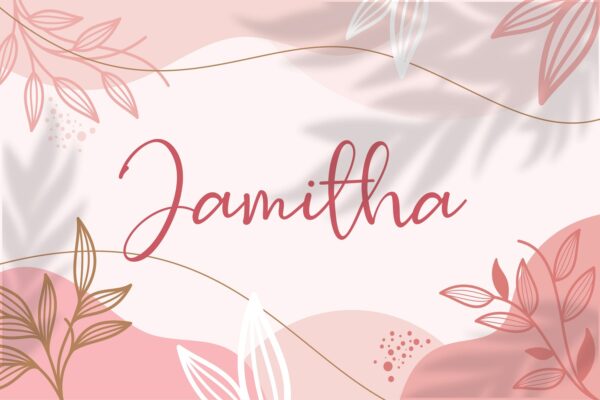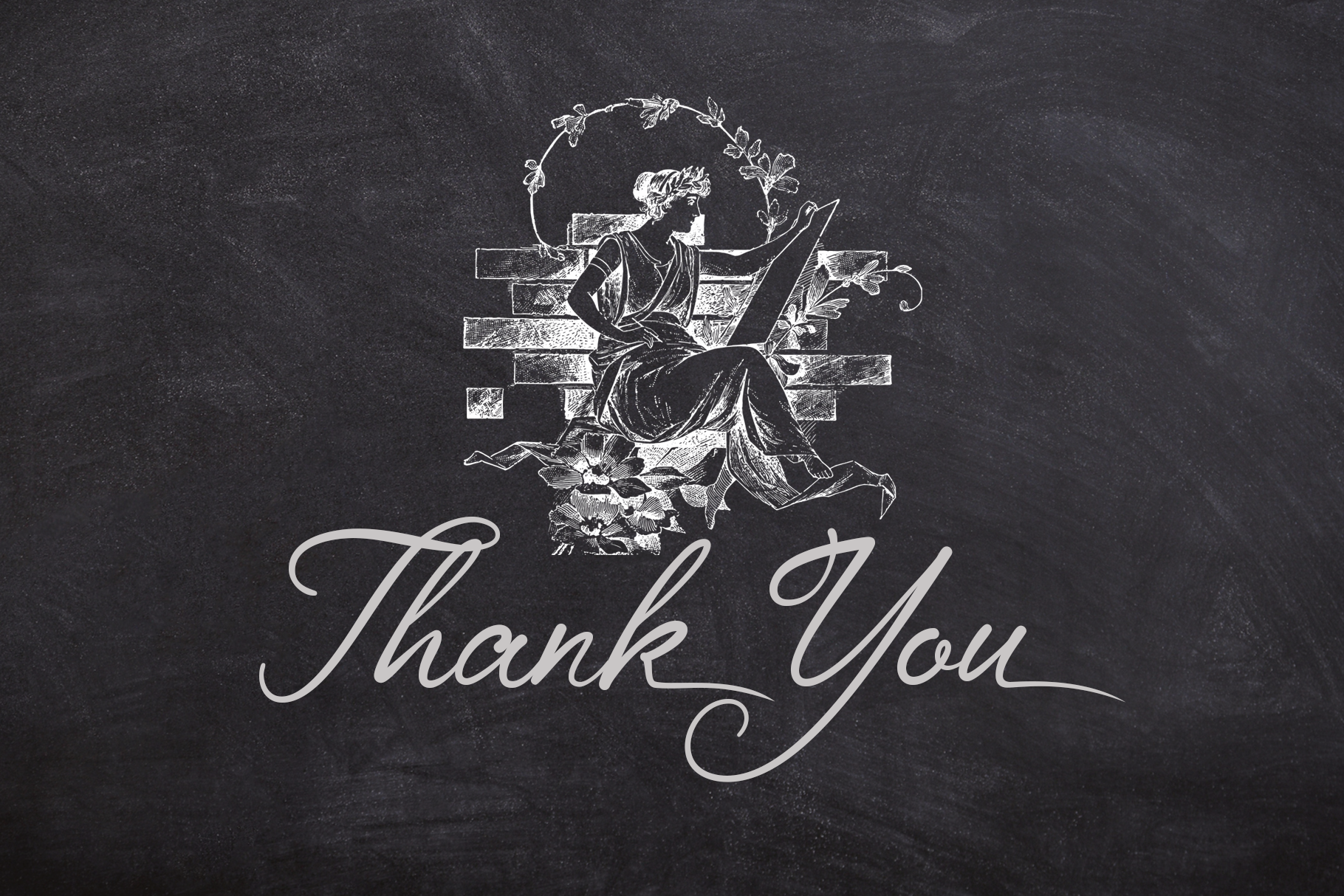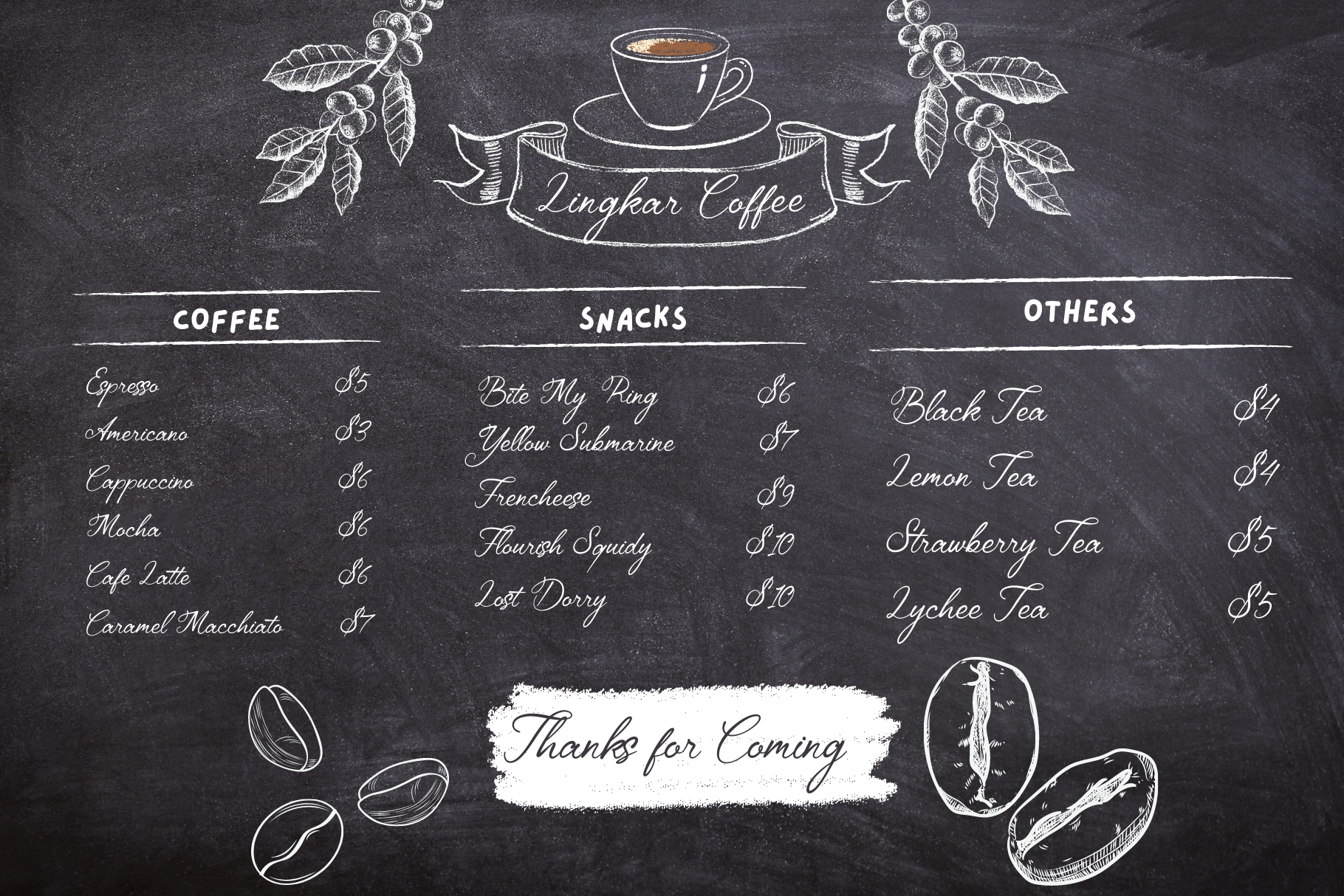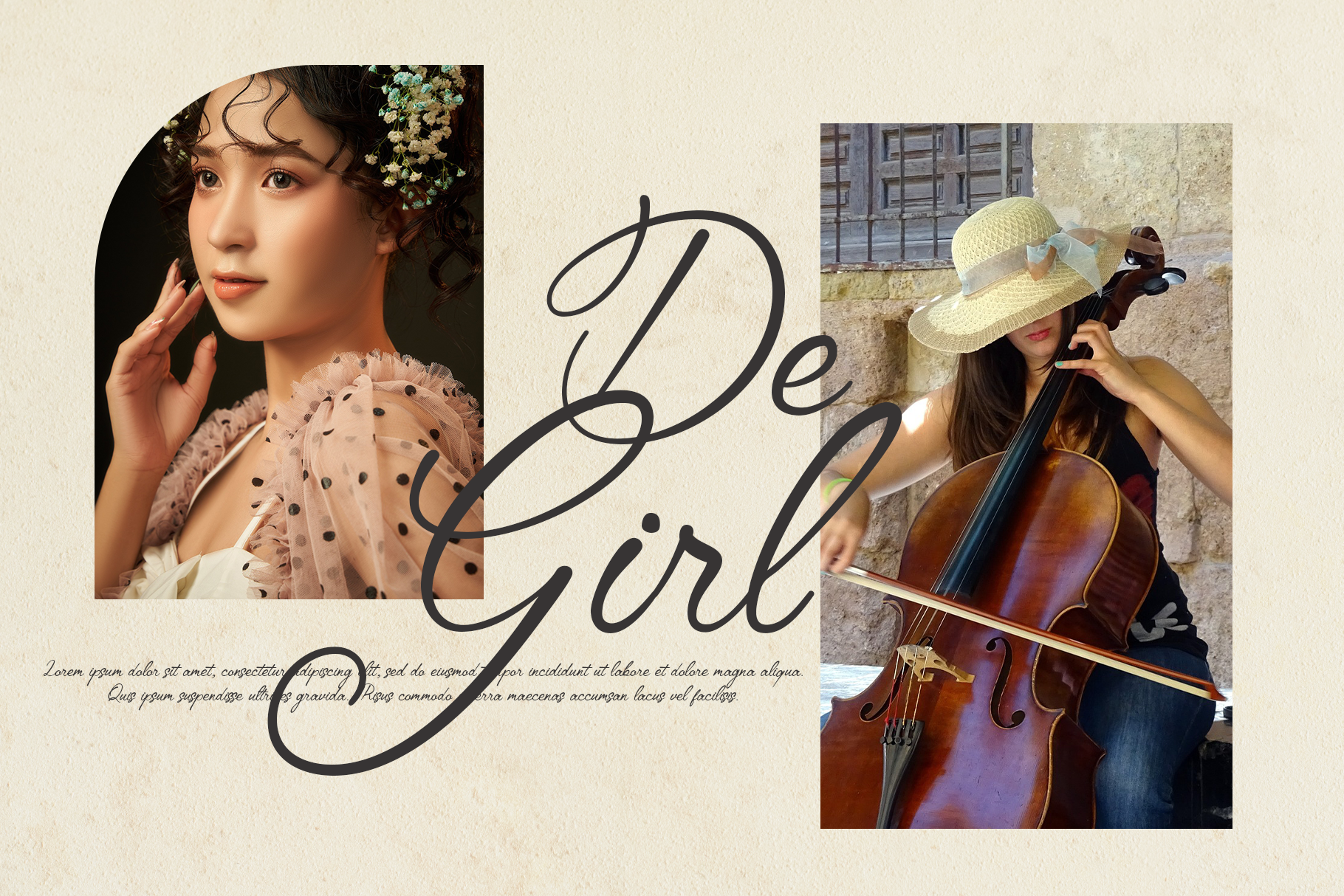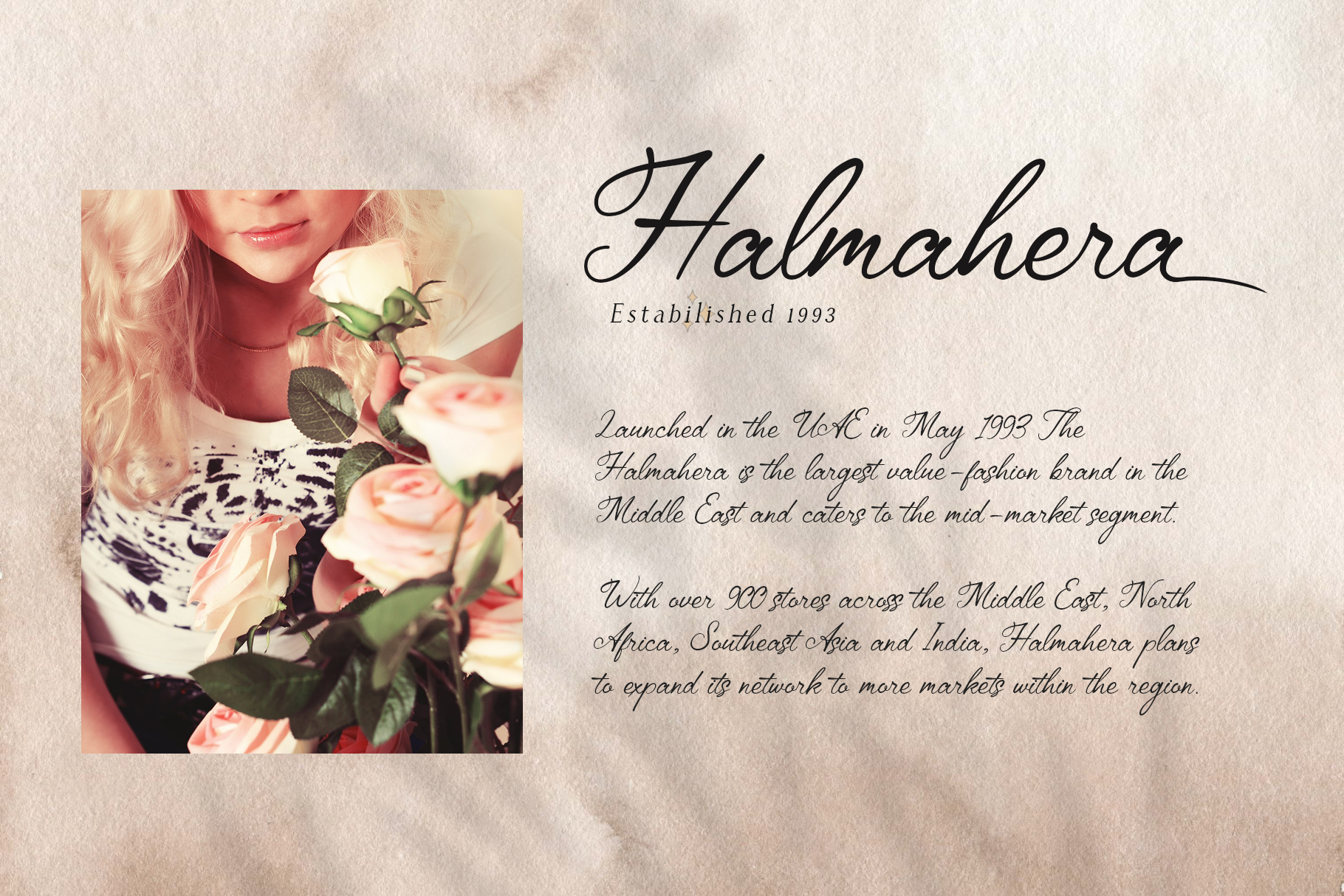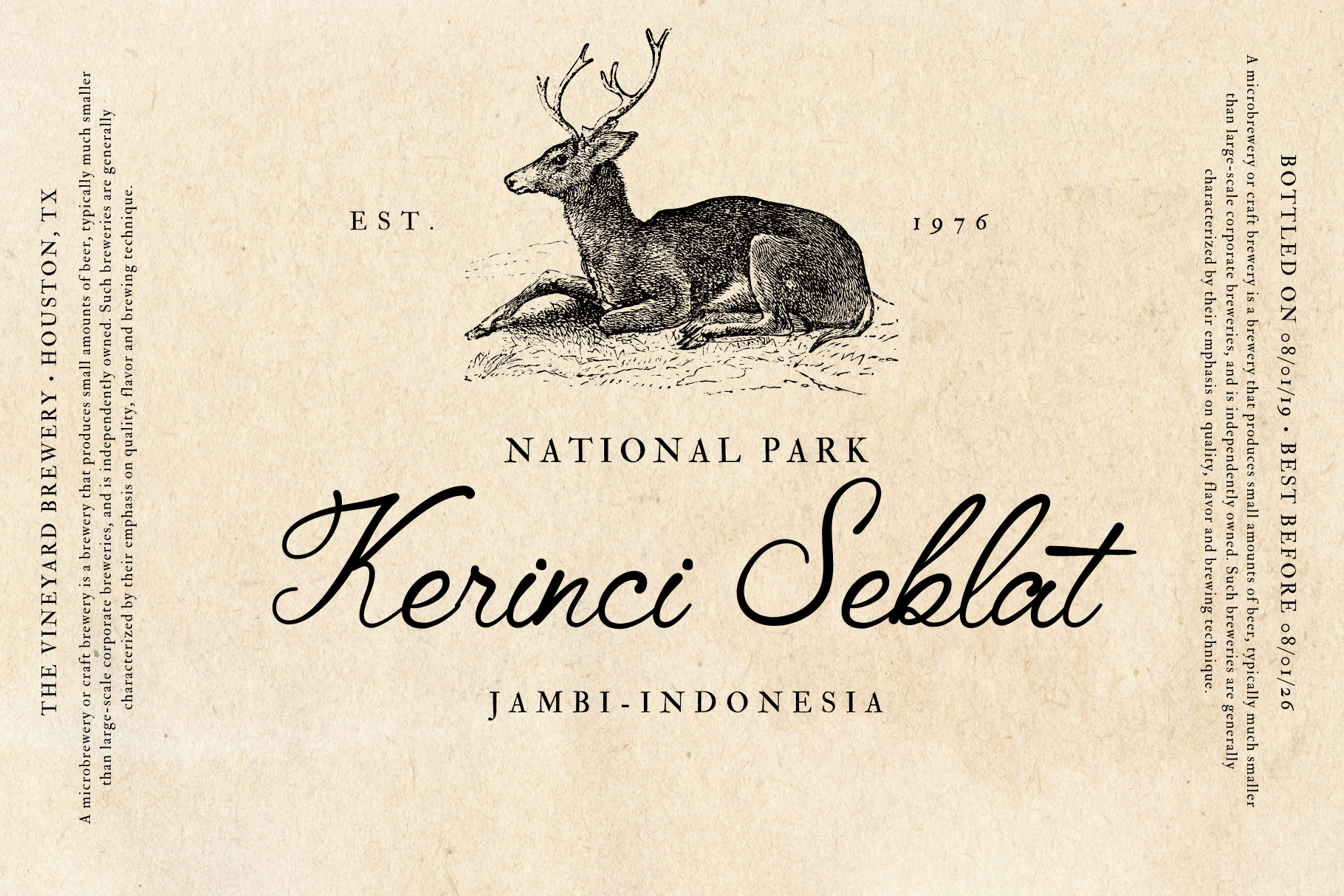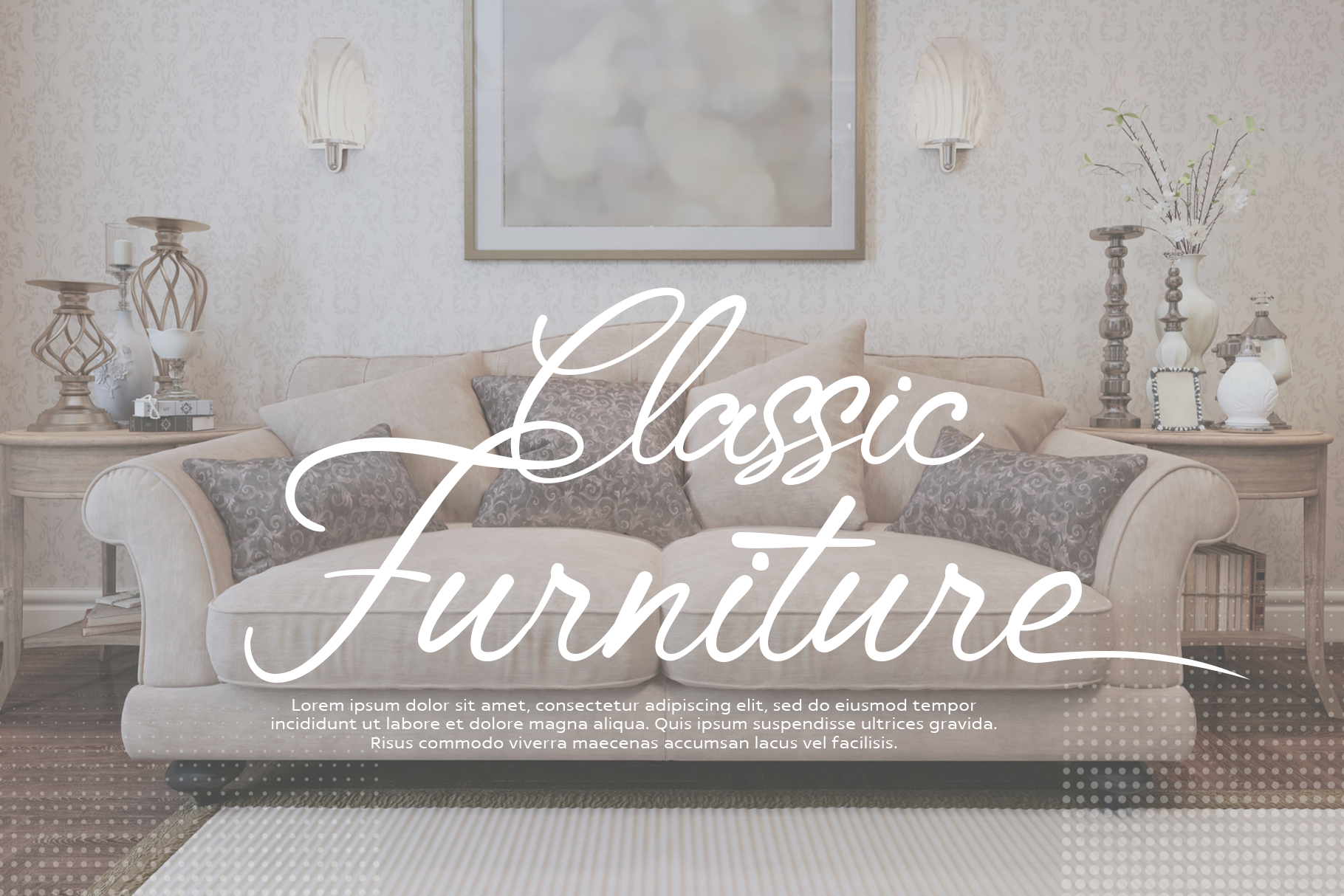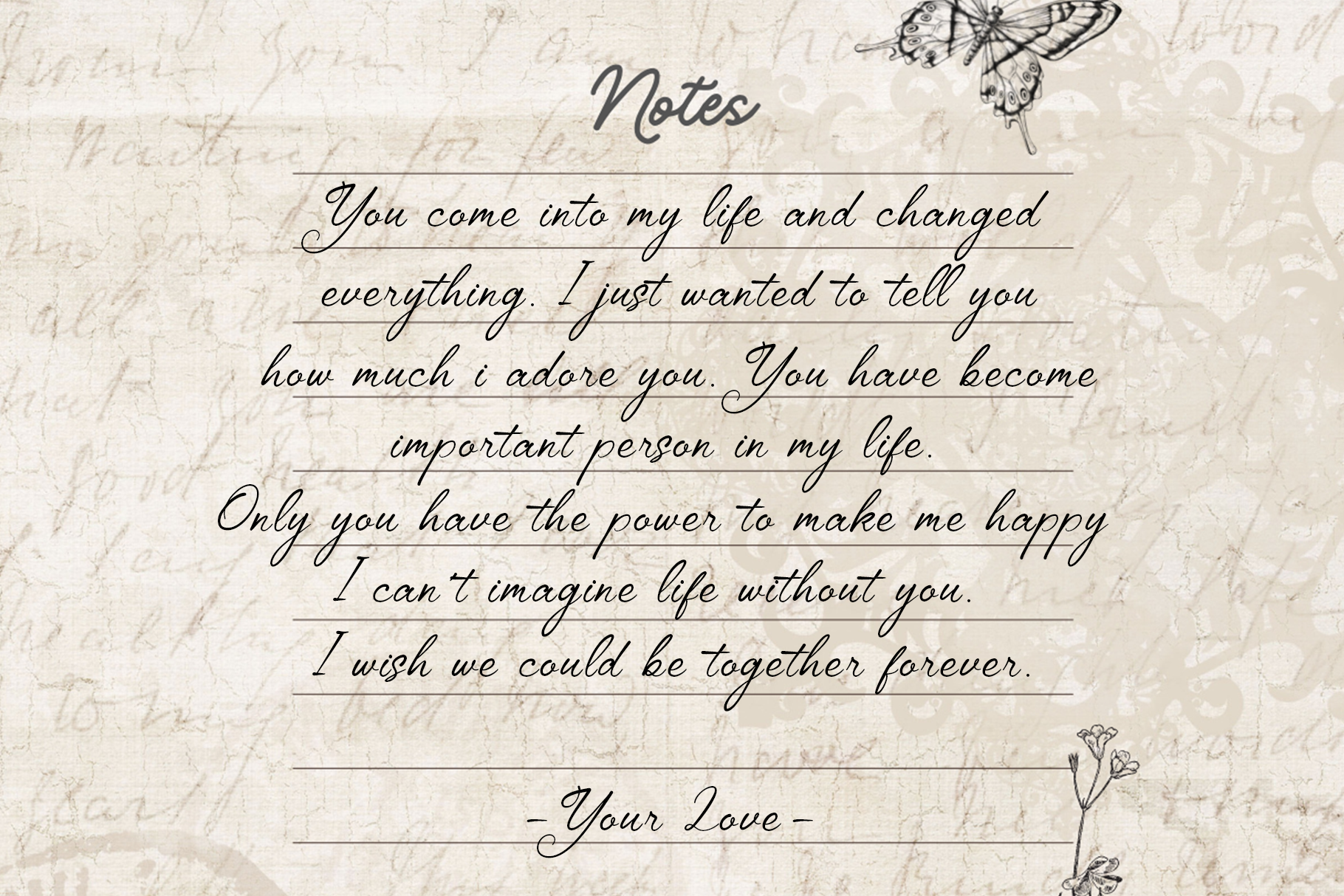
Amantta – Script Font
Introducing Amantta Script Font
This Font can be used for any variety of purposes, such as: Photography, Wedding Invitation, Packaging Product, Logo Type, Brand, and also can be used for personal purpose. This Font Template contains Modern, Elegant, creative, Professional and Unique Concept.
• Uppercase & Lowercase letters
• Numbering and Punctuations
• Ligatures
• Multilingual Support